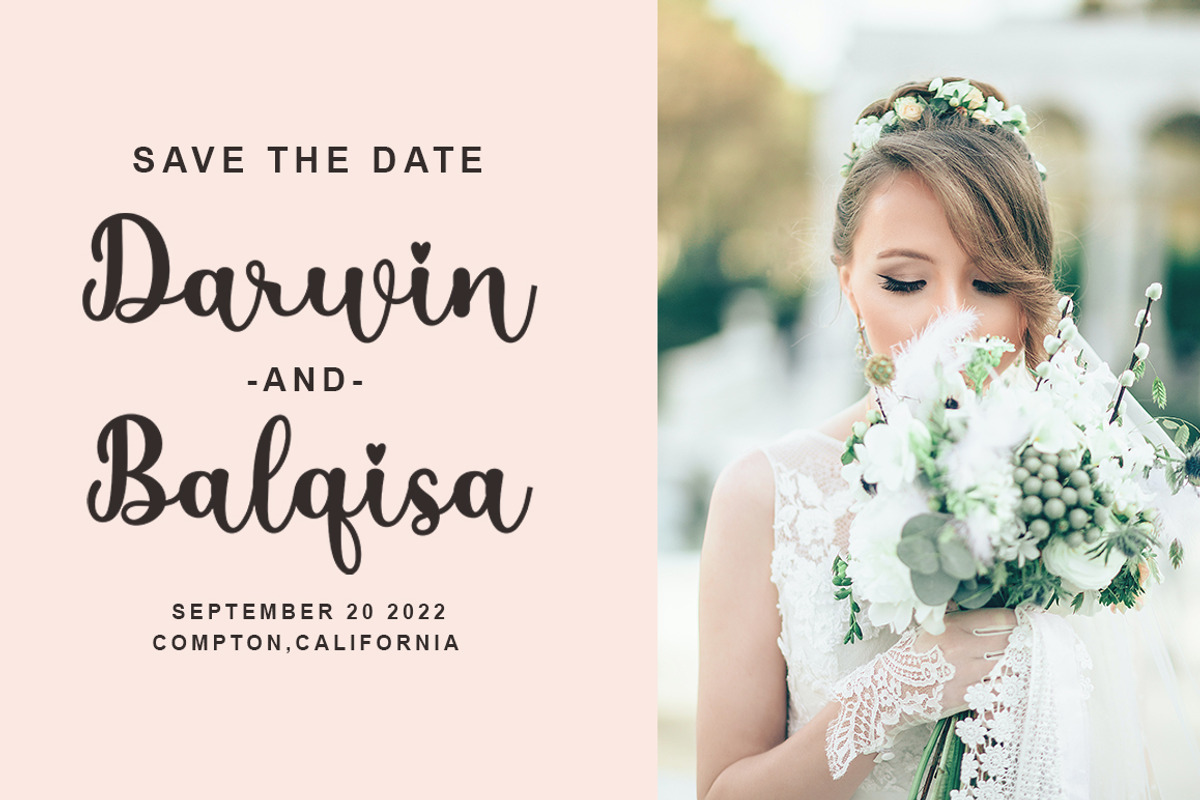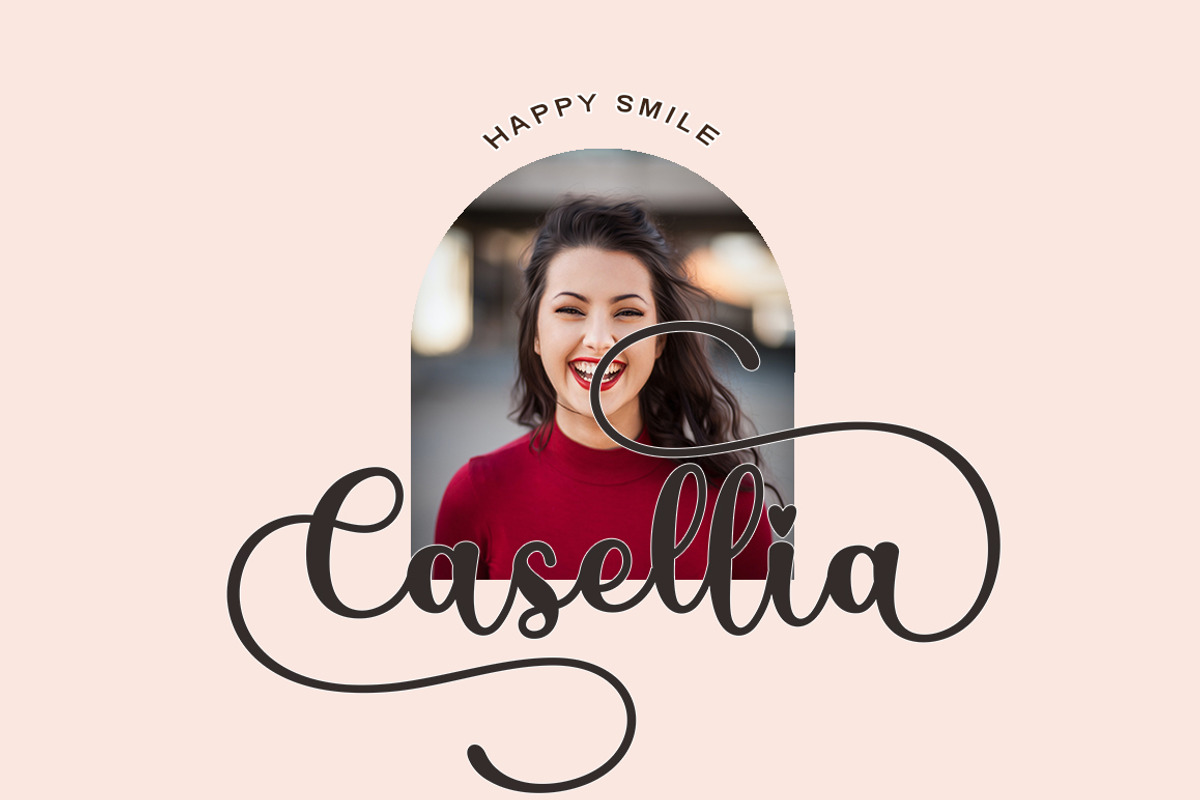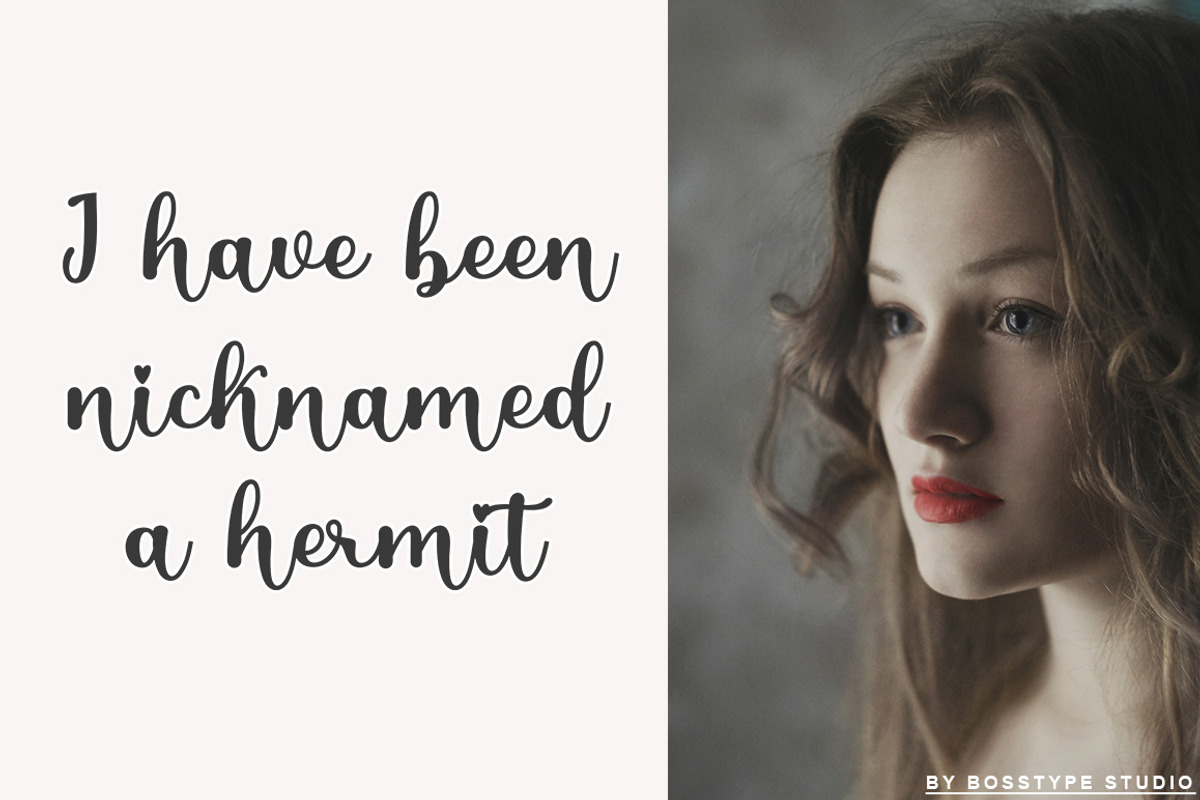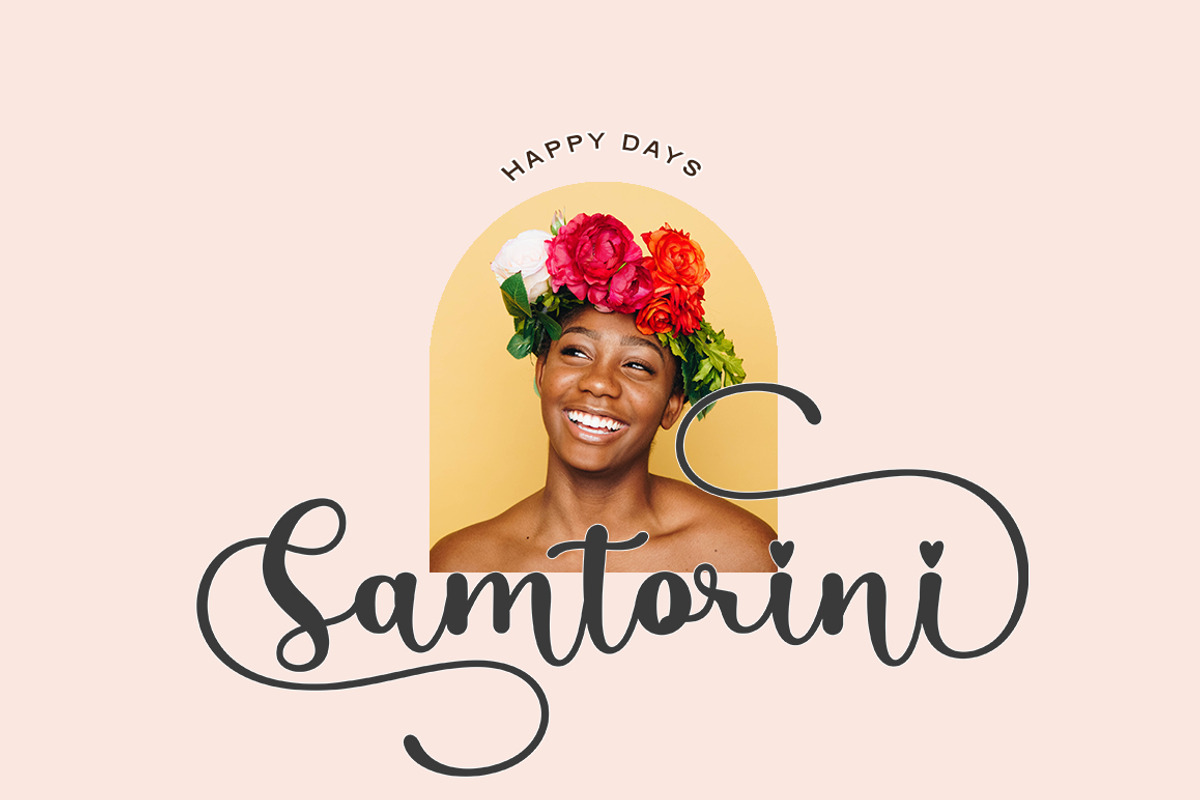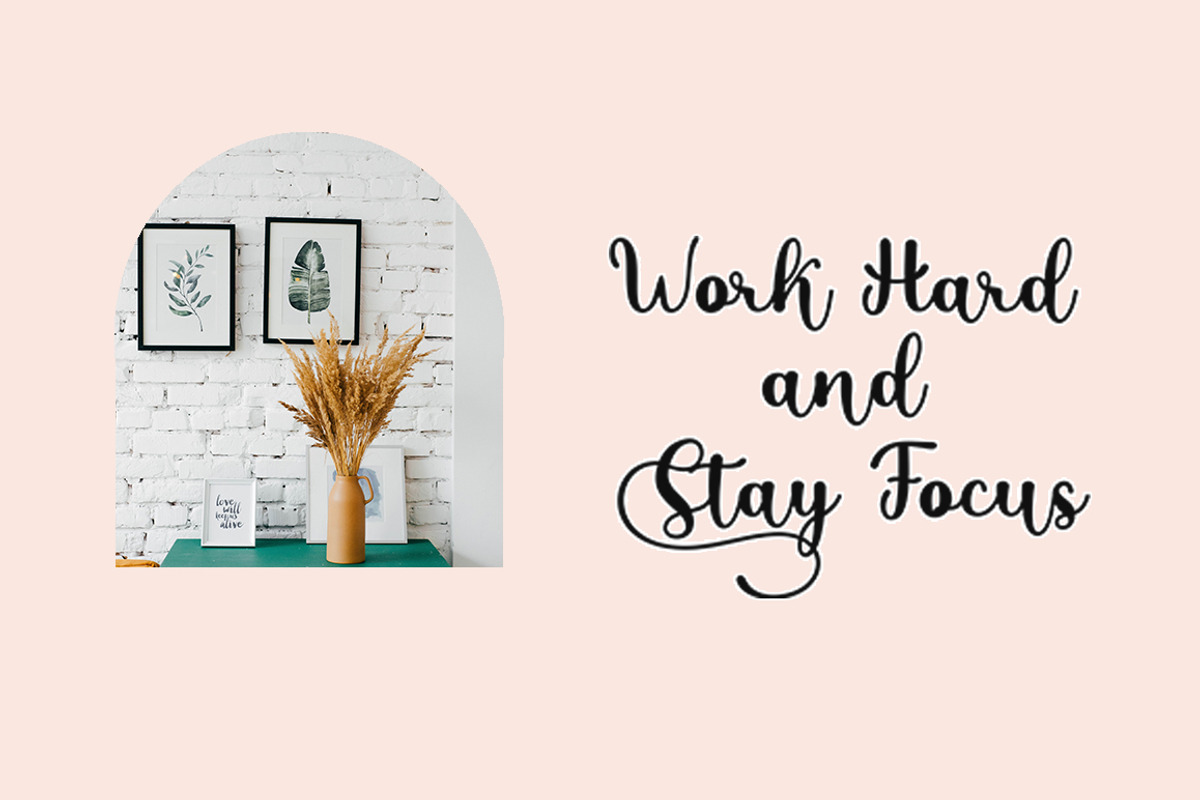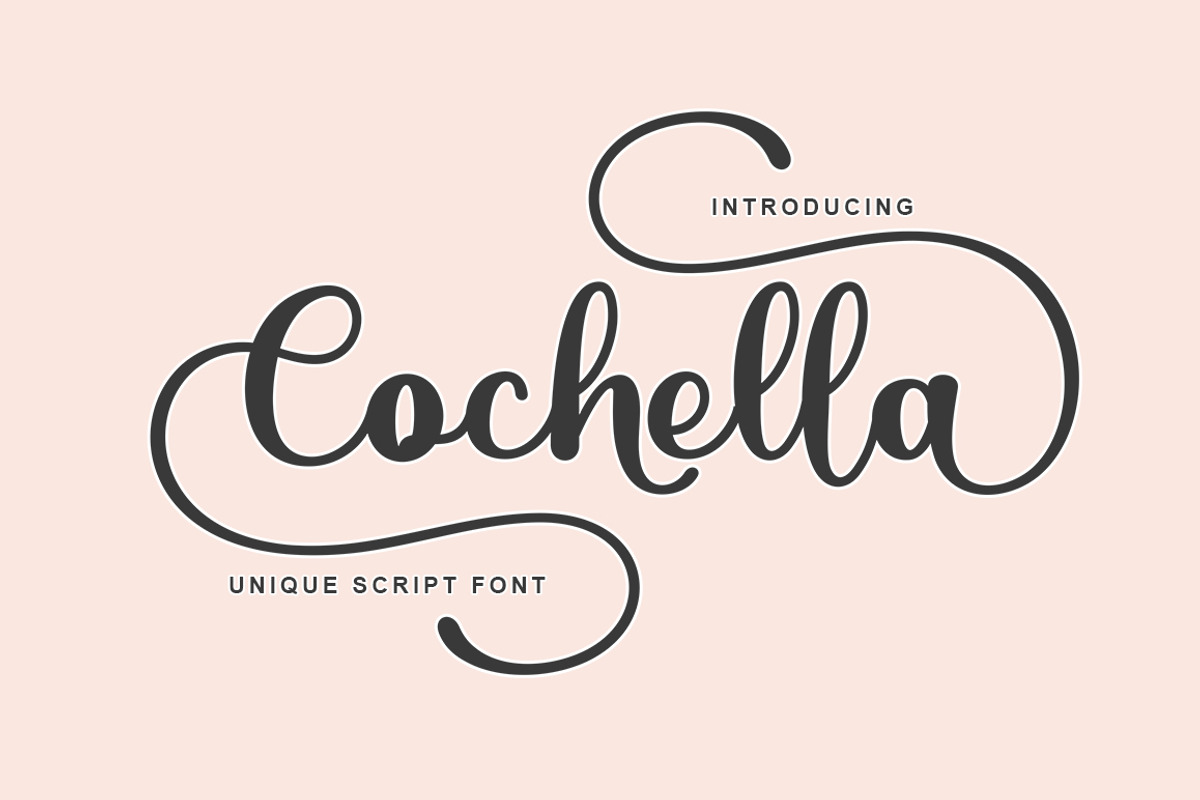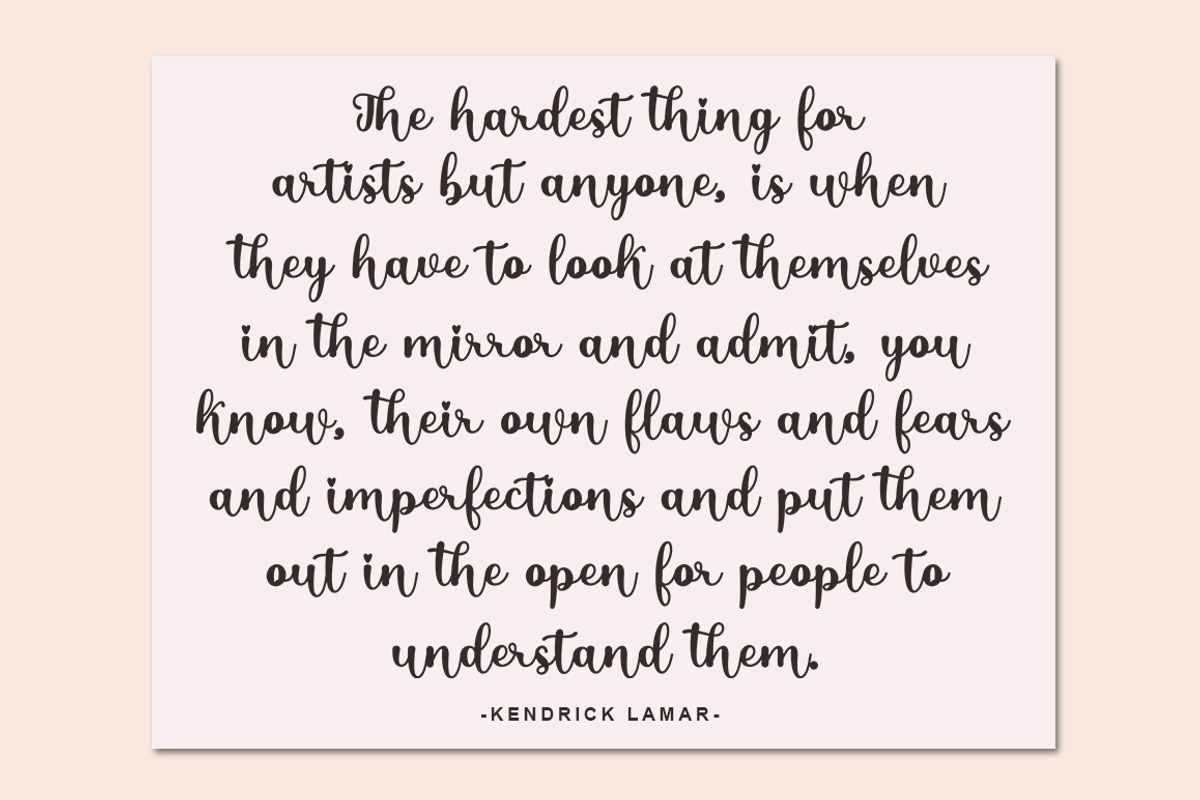
Cochella Family Font
Cochella is a script type family of four fonts. It is inspired by Elegant Fonts and has a soft and friendly look Cochella can be used for branding, packaging and anywhere else you need a script font that is readable and smooth. Cochella has many ties, strokes and alternate characters that will make your designs unique and beautiful.
You can also purchase Cochella as a Family Font and adjust the weight of Cochella smoothly between Slant and Bold weights. Note that you need design software that supports Family Fonts.